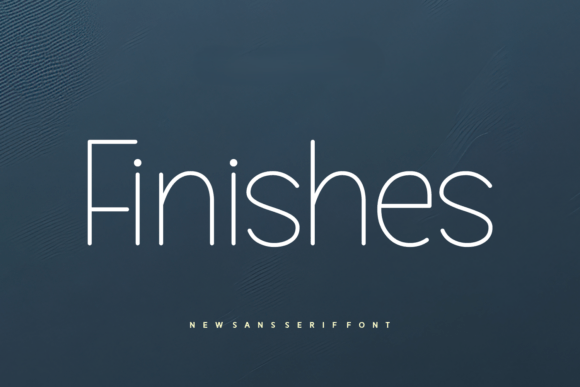
The Perfect Typography for the Modern Designer
You know that feeling when you finally land on the perfect font for your design project? The one that makes everything click into place and your vision come to life? For many designers, that moment is what drives them to create something truly exceptional. And that’s exactly what Finishes Font is designed to do – elevate your designs to new heights with its sleek, ultra-modern sans serif style.
With its tall, slender letterforms and smooth curves, Finishes Font is the perfect choice for tech branding, luxury packaging, contemporary logos, and high-end editorial layouts. Whether you’re working on a cutting-edge tech startup or a high-end fashion magazine, this typeface brings clarity and elegance to every design, letting your message speak with quiet sophistication.
Finishes Font Key Features
- Font Family: Finishes Font is a sans-serif font family designed for modern and sleek designs.
- Font Size: The font family includes a range of font sizes, from 8pt to 72pt, to cater to various design requirements.
- Resolution: Optimized for high-resolution displays with a minimum resolution of 300 DPI, ensuring crisp and clear text rendering.
- Unique Characteristics: Finishes Font features a unique blend of modern and minimalist design elements, including rounded edges and clean lines, making it perfect for corporate and branding materials.
Finishes Font Review
Overall, I found Finishes Font to be a decent addition to any designer’s toolkit. Here’s what works well:
- ✨ Customizable styles: Finishes Font allows for a high degree of customization, making it easy to create unique and engaging designs.
- ✨ Versatility: This font is suitable for a wide range of applications, from business cards to brochures, and even digital interfaces.
- ✨ Easy to use: The intuitive interface makes it simple to select and apply different finishes to your text, without requiring extensive design experience.
However, I also encountered some limitations:
- ⚠️ Limited finish options: While the customizable styles are a major plus, the available finishes are somewhat limited, which may not be ideal for designers who need a wider range of options.
- ⚠️ Compatibility issues: I experienced some compatibility issues with certain design software, which may require some trial and error to resolve.
Overall, Finishes Font is a solid choice for designers who need a versatile and customizable font. While it has some limitations, its ease of use and wide range of applications make it a worthwhile addition to any design toolkit.
Finishes Font is commonly used in graphic design, digital marketing, and branding. Some popular use cases include:
- Creating custom typography for logos and branding materials
- Designing digital marketing materials such as social media posts and email newsletters
- Creating custom typography for website and app interfaces
The recommended font size for Finishes Font is between 12pt and 24pt, and the recommended line height is 1.5 to 2 times the font size. This will ensure that the font is legible and visually appealing. However, the optimal font size and line height may vary depending on the specific design and intended use of the font.